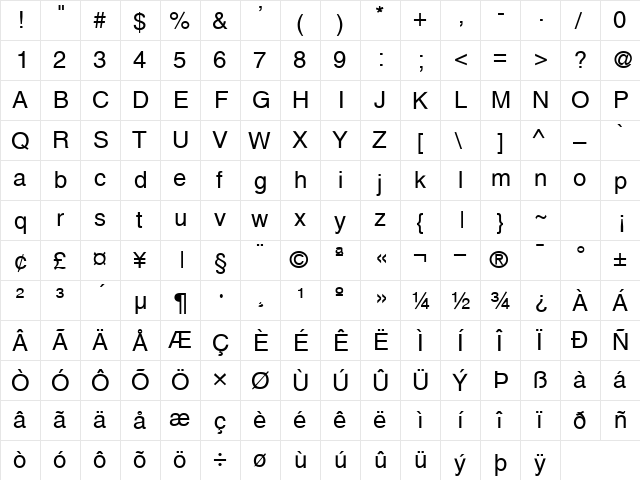
Alps-Extended Normal Font Preview
Alps-Extended Normal
Alps-Extended Normal Font Details
Design Context for Alps-Extended Typeface
Alps-Extended offers clean, dependable letterforms without strong stylistic allegiance, making it a practical choice for designers who need flexibility.